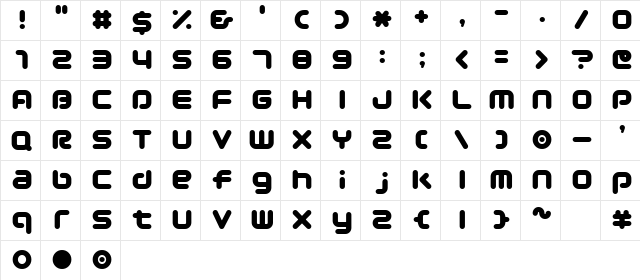
PocoUltra Regular
Design Context for PocoUltra Typeface
PocoUltra takes a measured approach to typography — its balanced proportions and neutral character make it a reliable workhorse for both digital and print work.